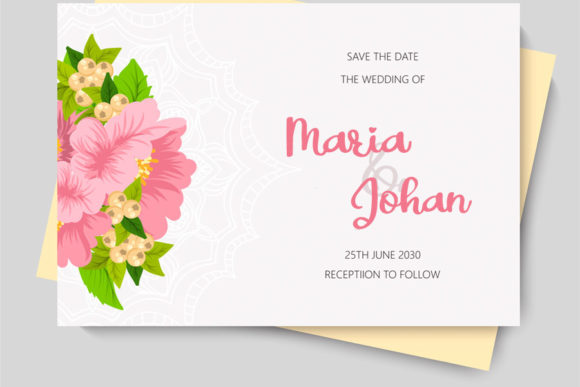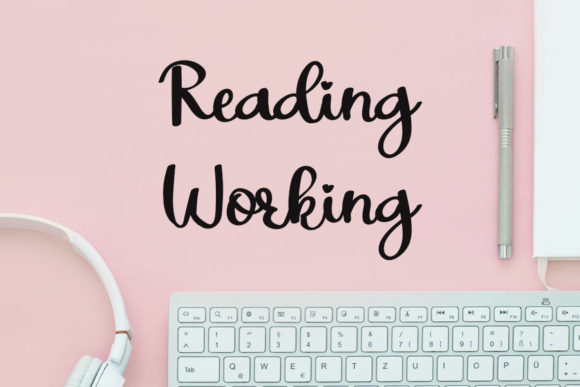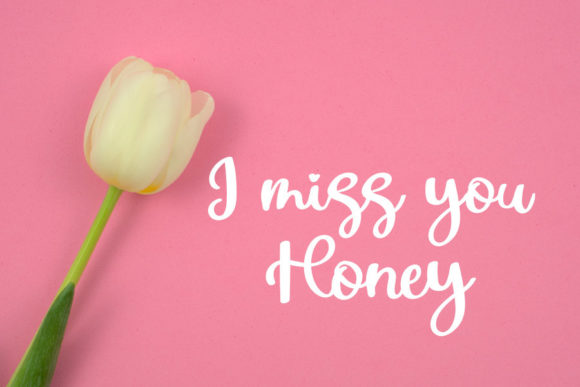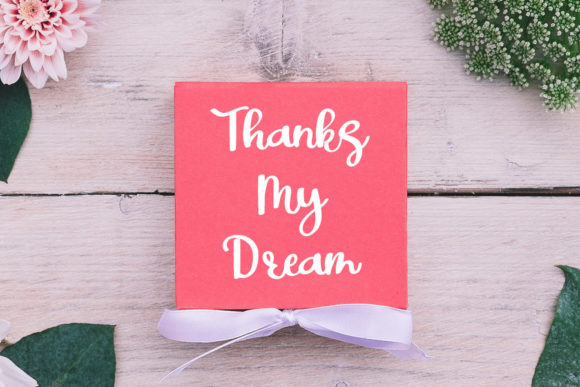
“Signature” is a sweet and cursive handwritten font that emanates a gentle and romantic charm. With its delicate strokes and flowing script, this font is a beautiful addition to a variety of design ideas, bringing a joyful and romantic touch to each project it graces.
The cursive nature of “Signature” adds a sense of elegance and fluidity to your text, making it ideal for projects that require a personal and romantic aesthetic. Whether you’re working on wedding invitations, love-themed cards, or any design that seeks to evoke a tender and joyful atmosphere, “Signature” is well-suited for the task.
The sweet and gentle quality of this font enhances its versatility, making it suitable for a range of creative applications. Whether you’re designing social media graphics, blog headers, or adding a personal touch to branding materials, “Signature” infuses a sense of warmth and charm into your visual content.
The handwritten and cursive style of “Signature” ensures that each letter flows seamlessly into the next, creating a cohesive and harmonious script. This quality not only adds beauty to your designs but also enhances readability, ensuring that your message is conveyed with clarity and style.
In summary, “Signature” is more than just a font; it’s a design asset that brings sweetness, joy, and romance to your projects. Whether used for romantic occasions or adding a personal touch to various design ideas, this cursive handwritten font is a delightful choice for infusing your creations with a touch of elegance and tenderness.